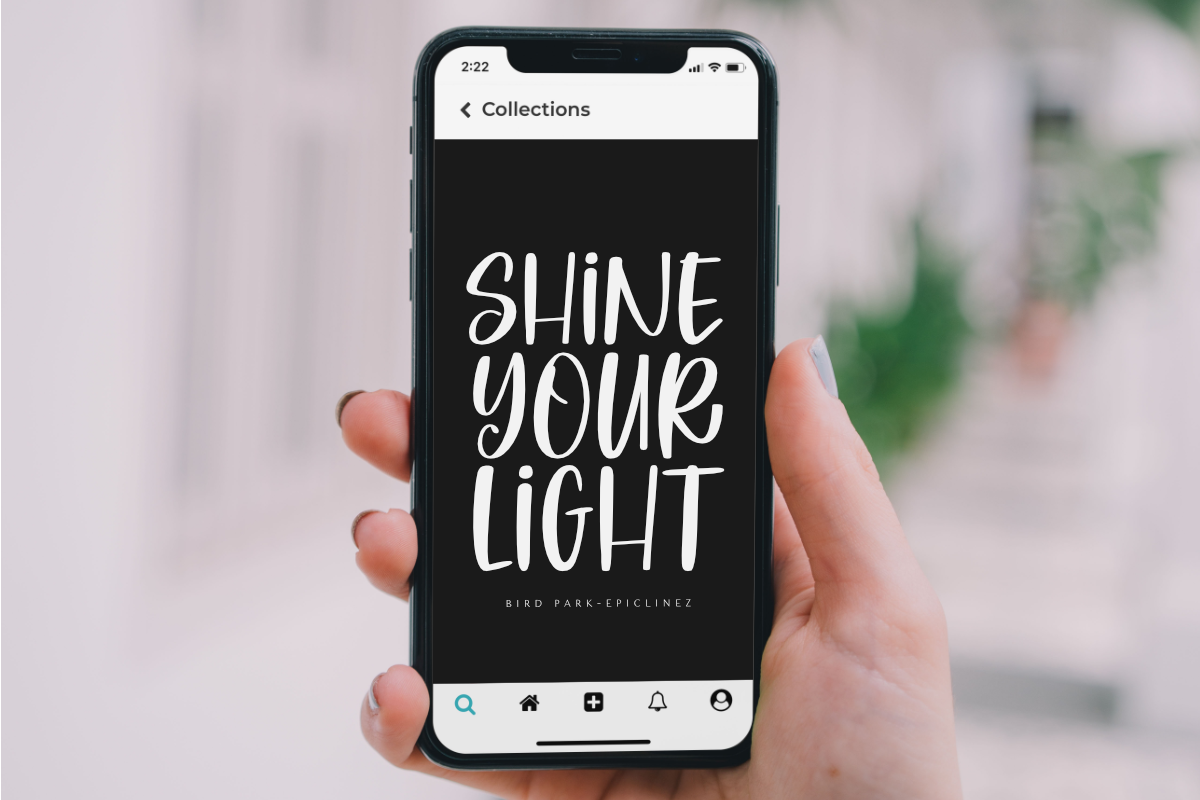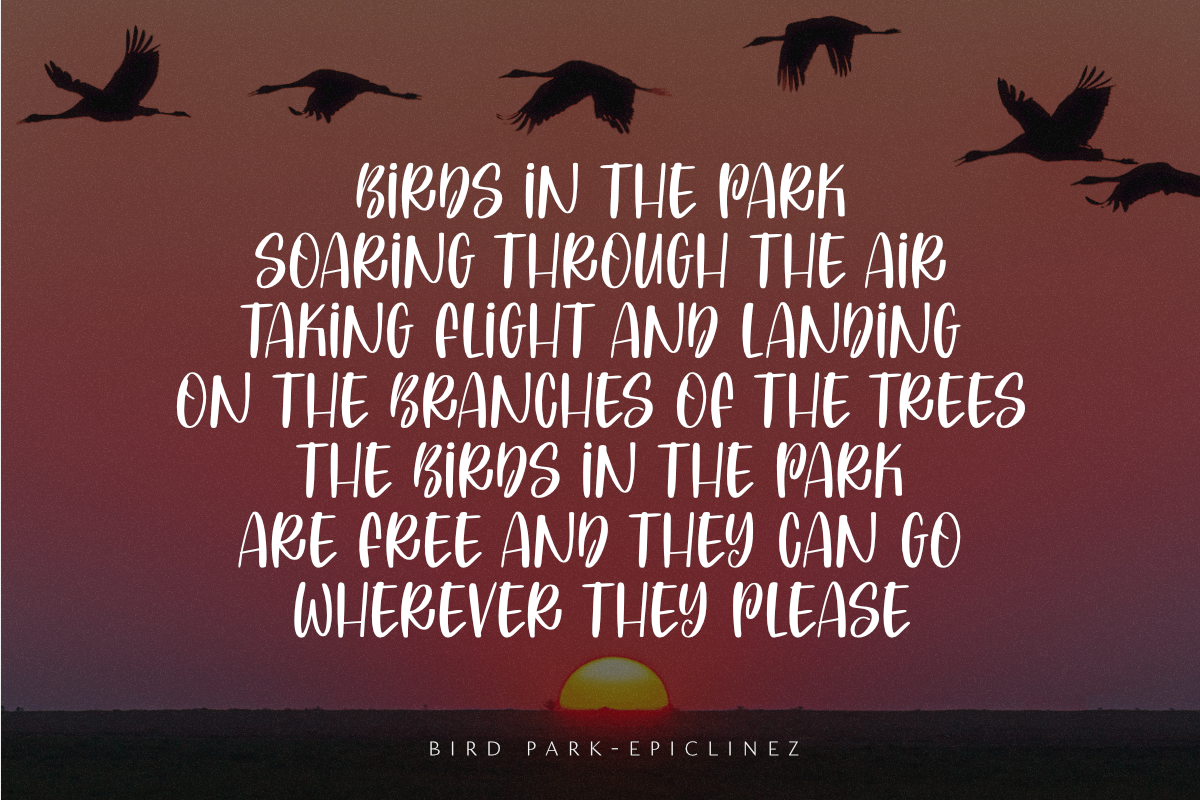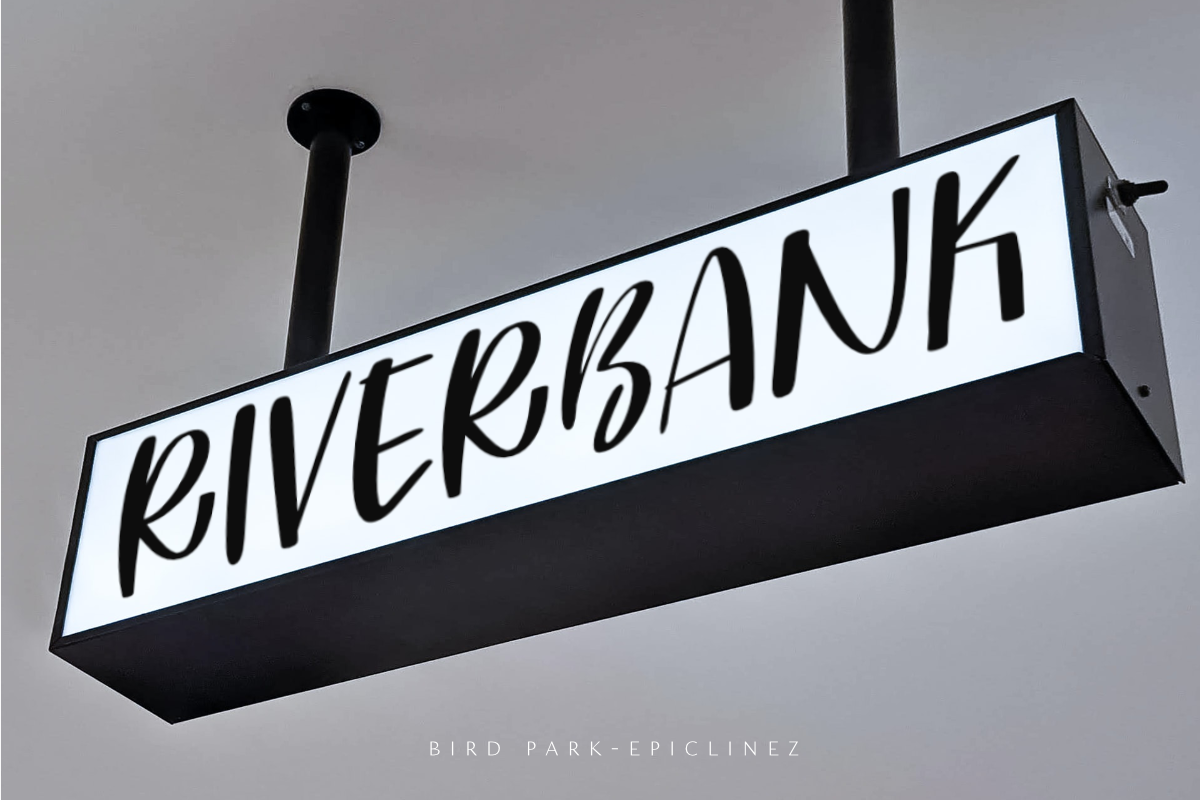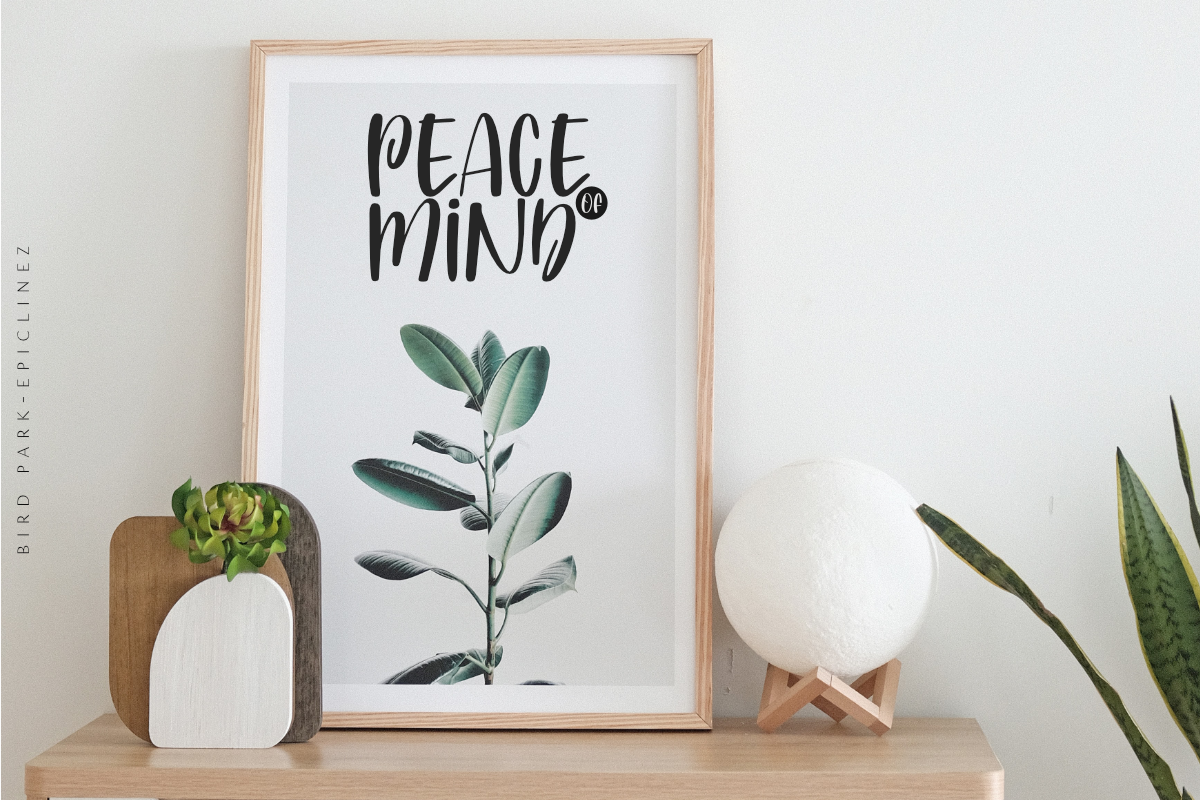
Bird Park
Meet Bird Park, the newest handwritten font from our studio. It is perfect for DIY projects and invitations or giving a personal touch to your cards, prints, and other creative projects. With a carefully crafted hand-drawn style this font is both cute and fun!